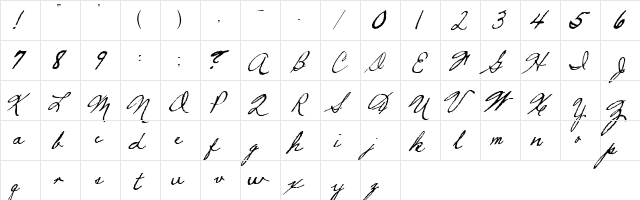
Ahoy Distressed Mother 1
Design Context for Ahoy Distressed Mother Typeface
Ahoy Distressed Mother embraces imperfection — its rough, textured character adds raw authenticity to designs that want to feel lived-in and unconventional.
A strong fit for alternative music projects, graffiti-adjacent design, and anything that deliberately resists polish.
Pro Tip: Use Ahoy Distressed Mother at larger sizes where the texture and irregularity of each letterform can be clearly seen — it loses its character at small sizes.